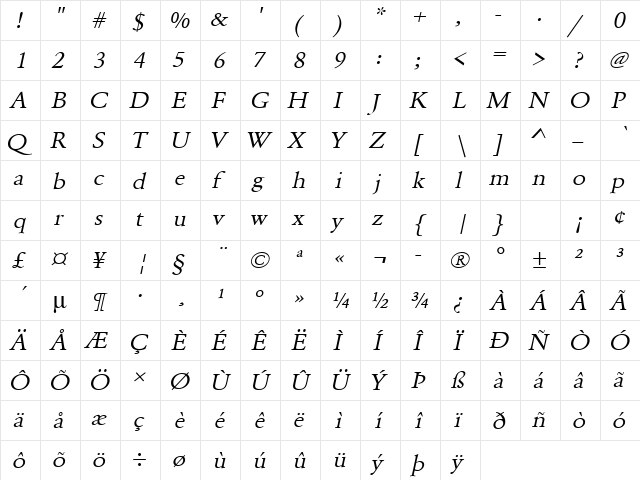
URWGaramondTExtWid Oblique Font Preview
URWGaramondTExtWid Oblique
Design Context for URWGaramondTExtWid Typeface
URWGaramondTExtWid offers clean, dependable letterforms without strong stylistic allegiance, making it a practical choice for designers who need flexibility. The dynamic lean of this cut emphasises speed and emphasis in any layout.